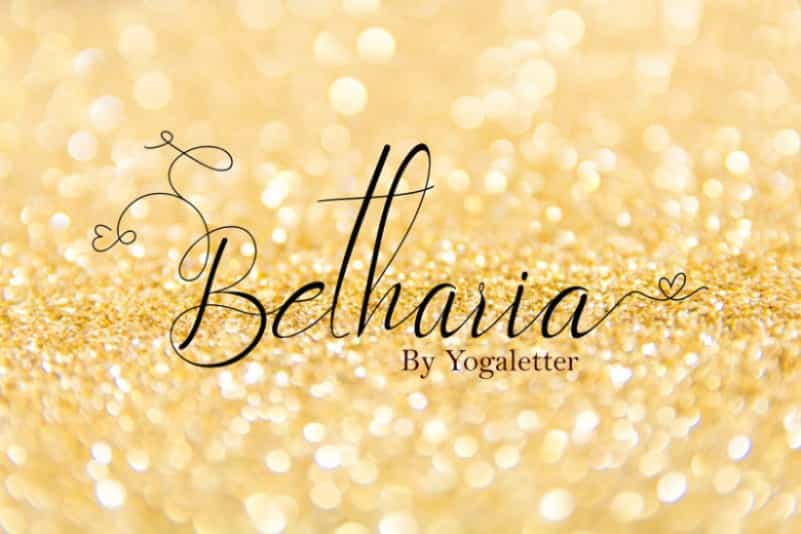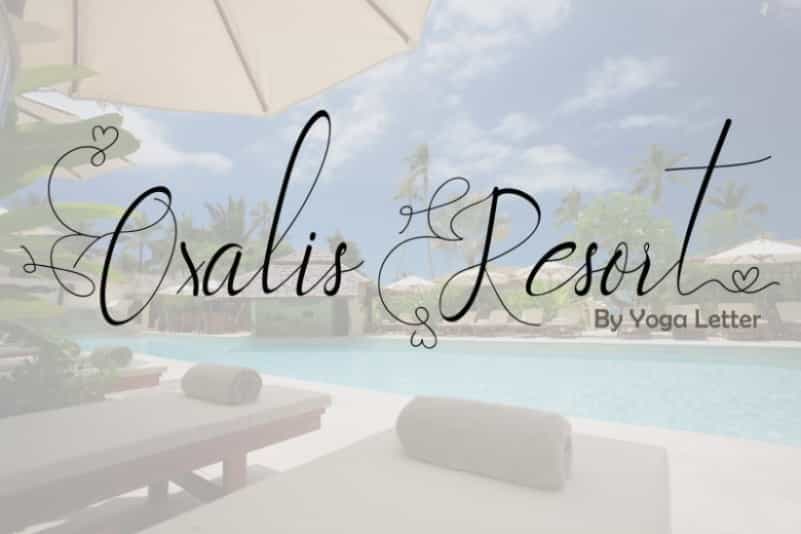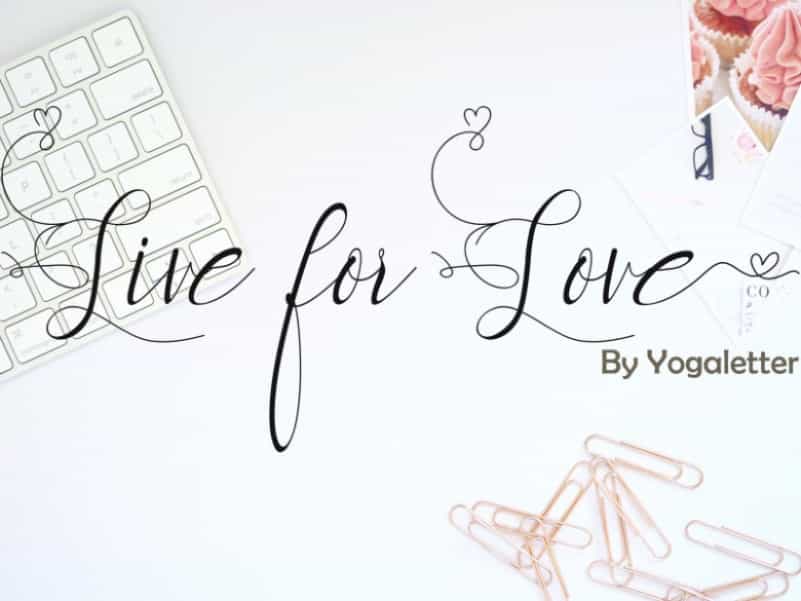
Betharia can be easily characterized as the font that has a delicate and graceful vibe and is suitable for the modern use. Published by yogaletter6, this font has beautiful calligraphic properties and is a gorgeous modern script font.